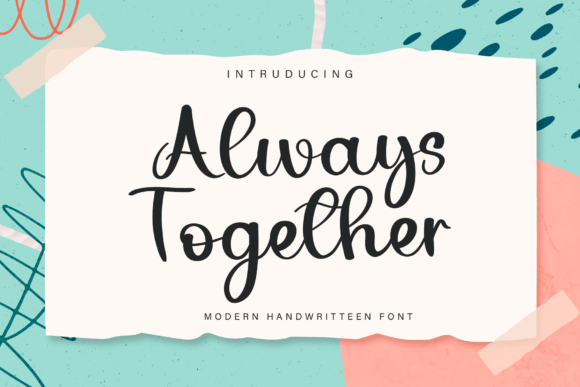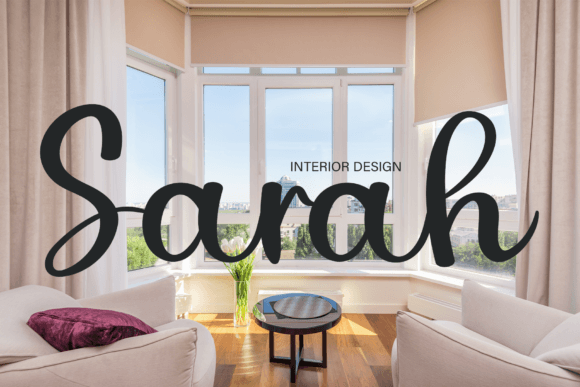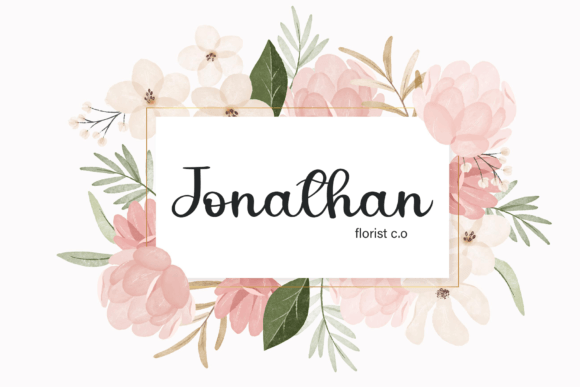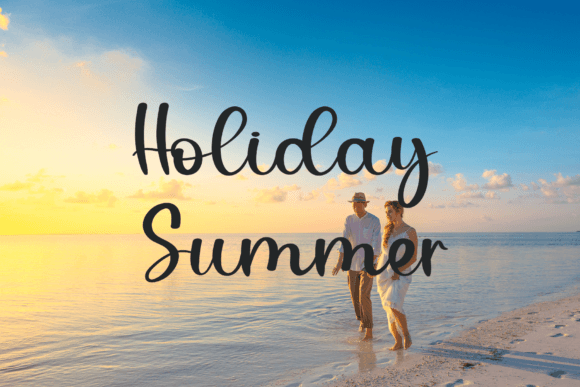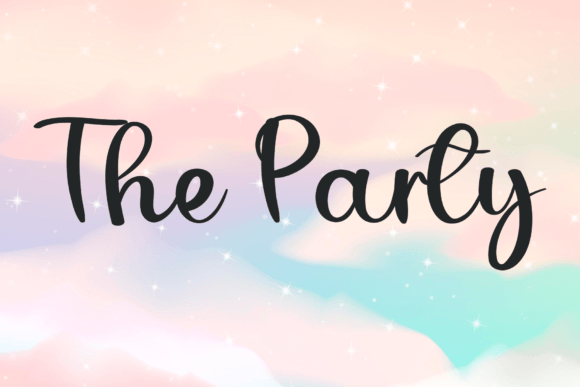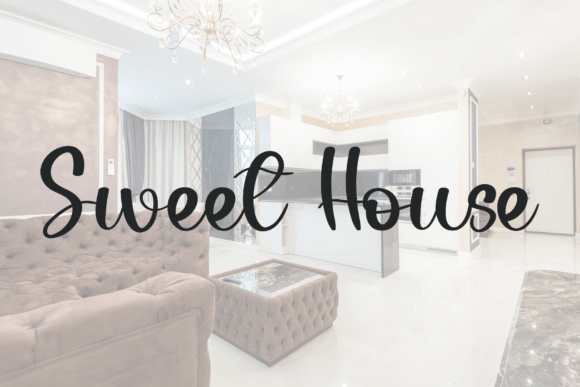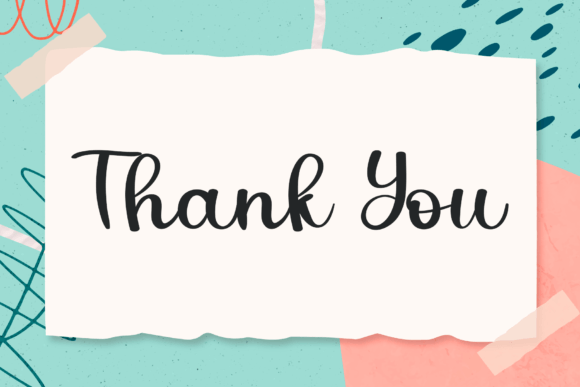
Always Together Font
About Always Together Font
Always Together is a delightful and friendly handwritten font that injects a sense of fun into your text. This font is designed to turn any design idea into a true standout, inspiring creativity and adding a unique charm to your projects.
The friendly demeanor of Always Together makes it a versatile choice for a variety of design applications. Whether you’re working on digital graphics, print materials, or any creative project, this font is crafted to bring a touch of warmth and approachability.
Use Always Together to create designs that exude a lighthearted and fun vibe. Its unique charm adds character to your text, making it an ideal choice for projects where you want to convey a sense of friendliness and creativity.
Picture Always Together enhancing the visual appeal of social media graphics, bringing a playful and inviting element to your posts. Envision it turning mundane designs into delightful creations, making your text truly stand out.
In summary, Always Together is more than just a font; it’s a creative tool that brings a fun and friendly atmosphere to your designs. Let it be the choice that adds a unique charm to your projects, turning them into standout creations that capture the imagination of your audience.